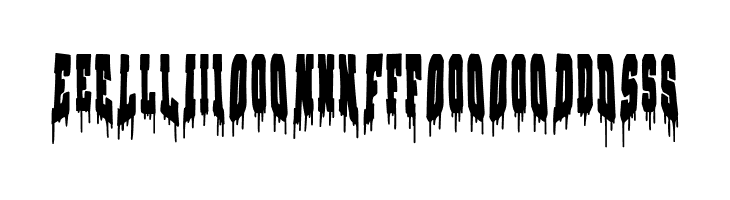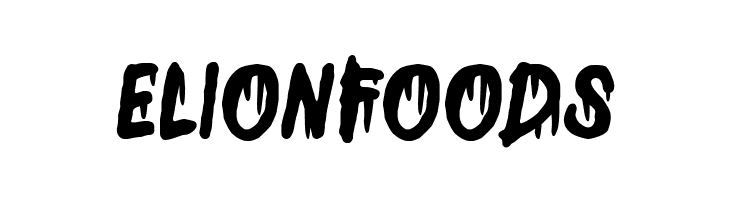
( Fonts by Yoga Letter )
A bold, dripping font ideal for horror and Halloween themes.
( Fonts by Feri Fauzi )
A bold, dripping font with a playful and artistic style.
( Fonts by Tokokoo Studio )
A bold, horror-themed font with jagged, dripping characters.
( Fonts by Trash Fonts )
A bold, dripping font perfect for horror-themed designs.
( Fonts by PutraCetol Studio )
A playful, ice cream-themed decorative font with bold, rounded characters.
( Fonts by Cat.B )
A bold, graffiti-inspired font with a dripping effect, ideal for urban-themed designs.
A dripping, edgy font with a dynamic and eerie appearance.
( Fonts by Cat.B )
A bold, dripping font with a playful and eerie style.
( Fonts by Makashi )
Bold, dripping display font with a playful and spooky vibe.
A bold, dripping display font with a horror aesthetic.